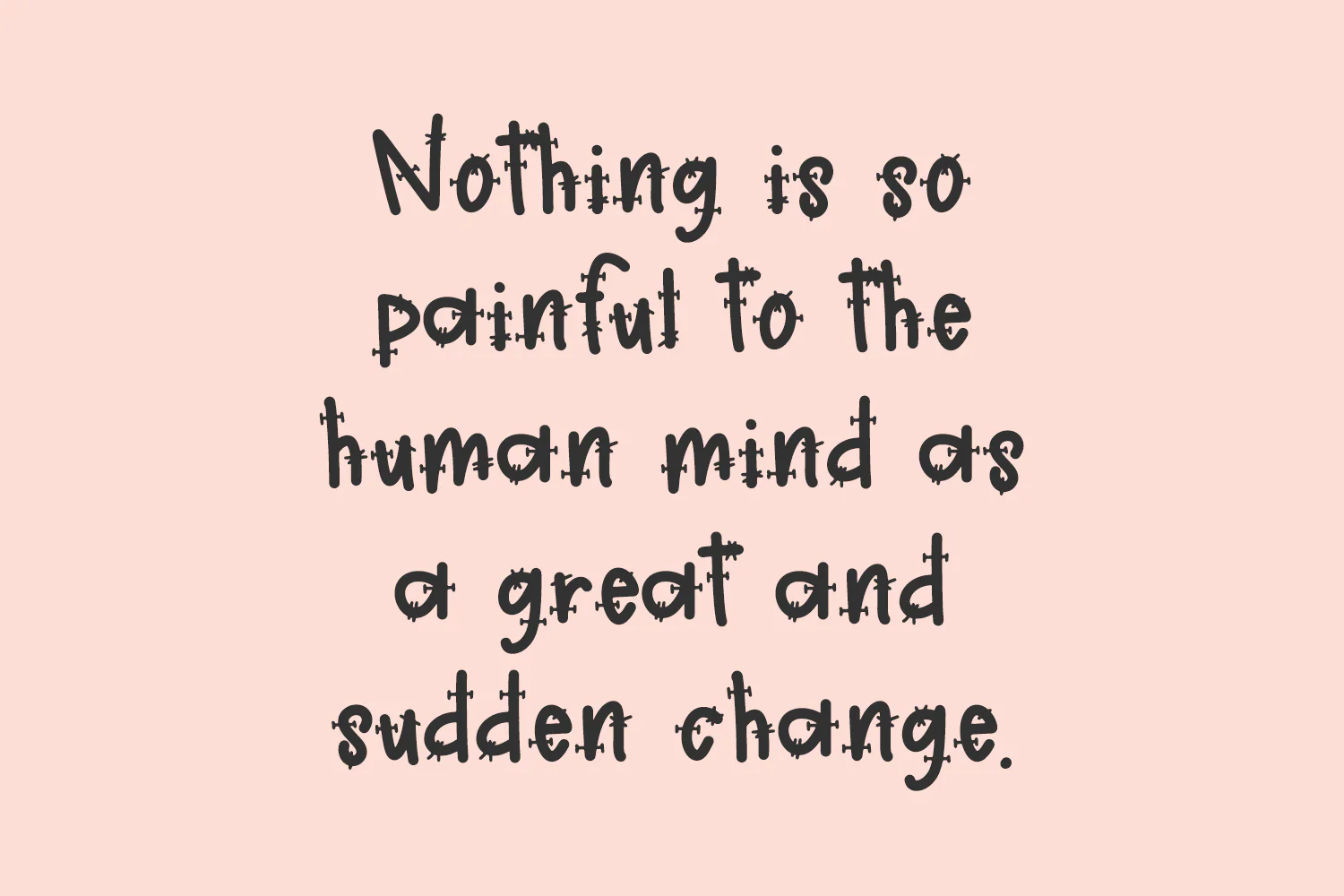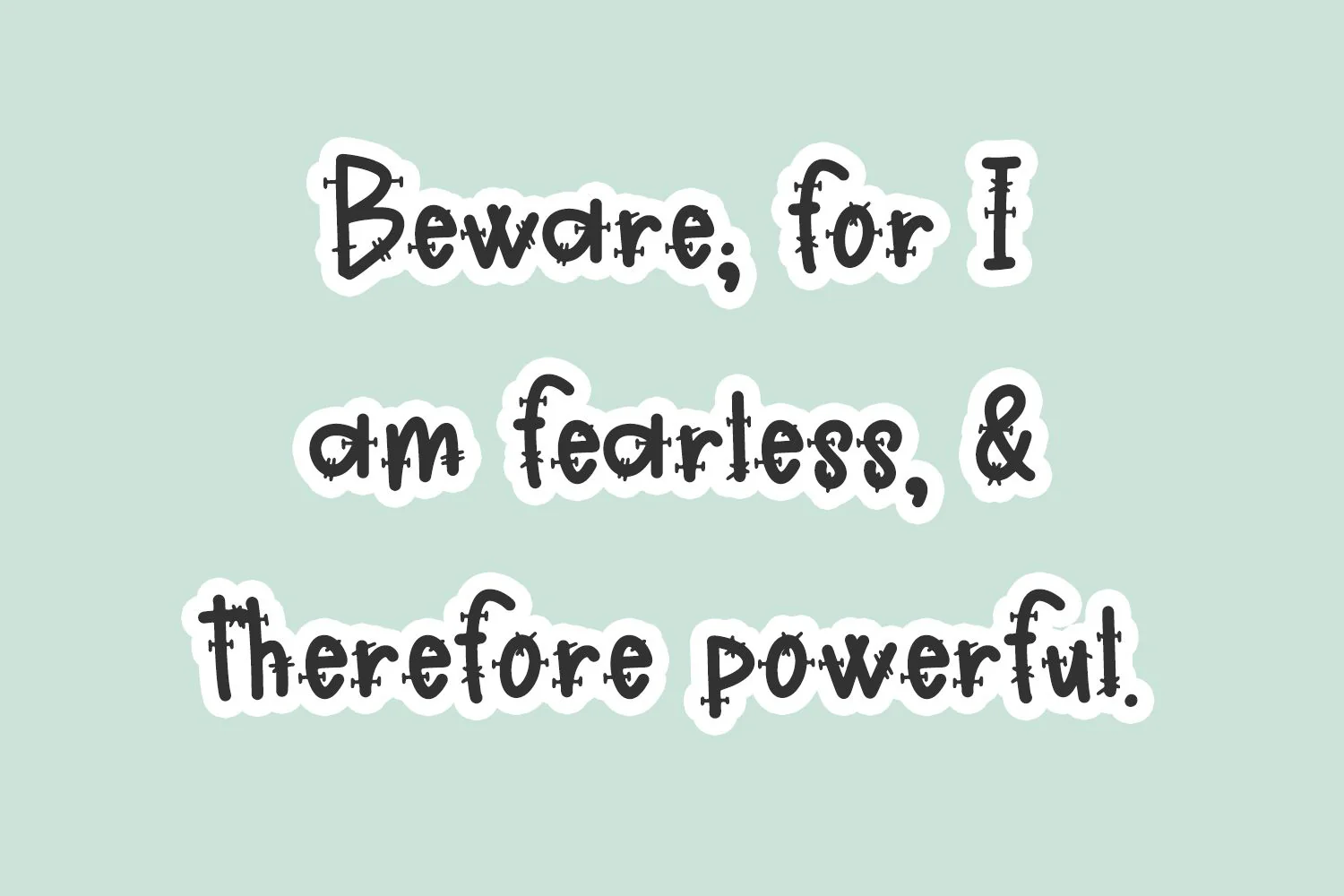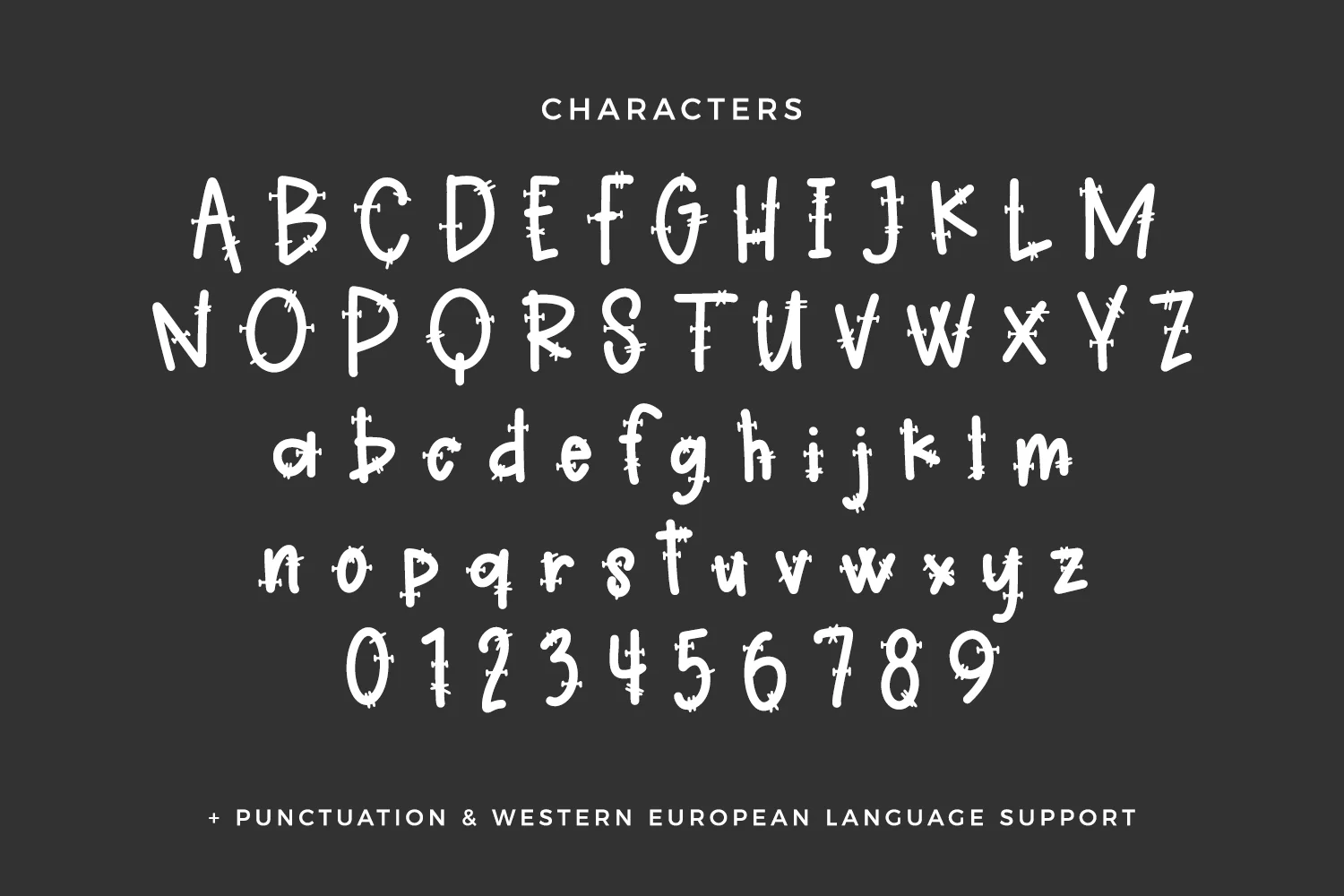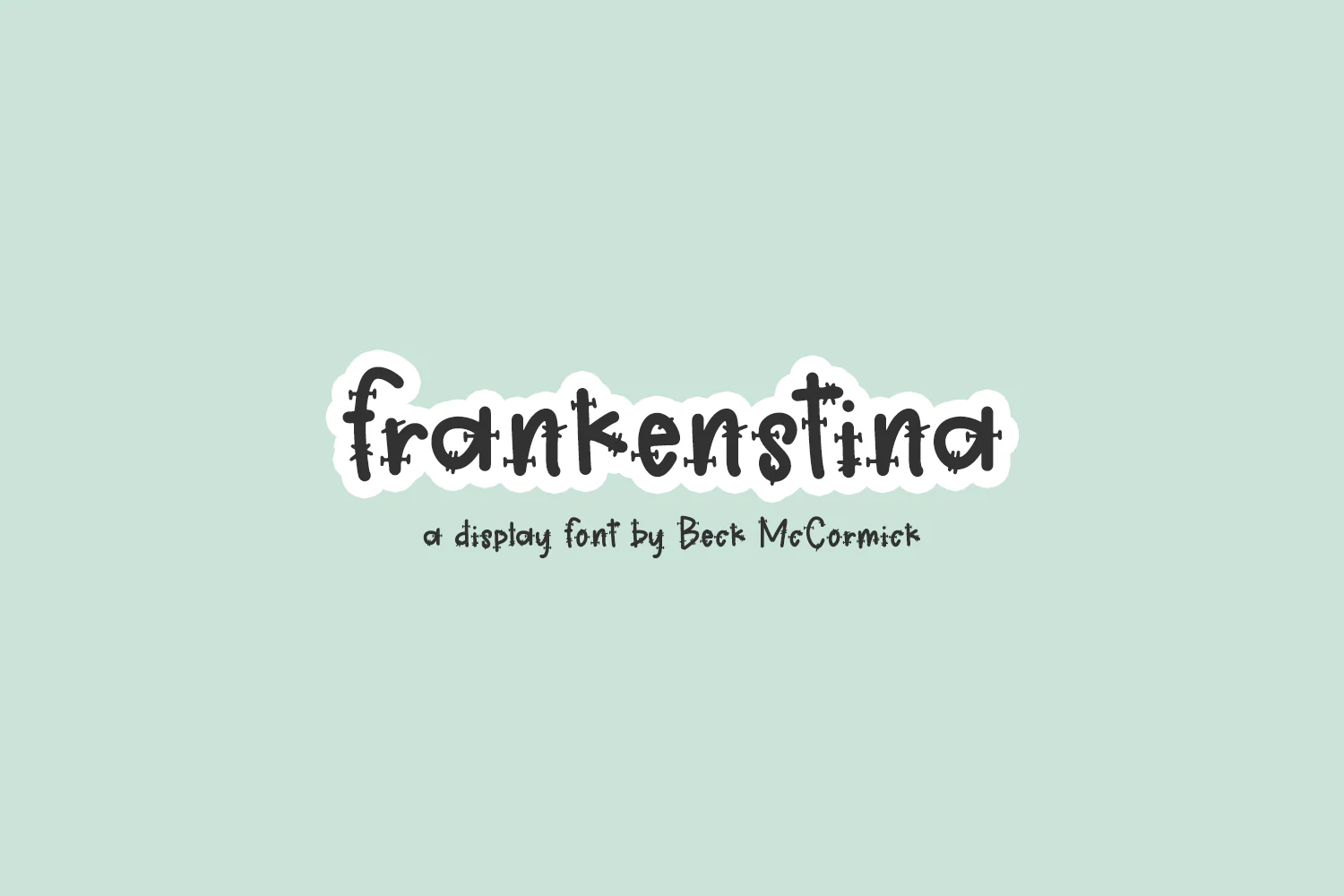
Introducing Frankenstina, a playful monster-themed font. Frankenstina is a fantastic fit for your scary designs. This font is well-suited for Halloween crafting projects with your Cricut or Silhouette machine, and can be used for things like shirts, signs, labels, marketing materials, social media, SVG designs, greeting cards & other print items, and even spooky logos & branding.
- Western European language support - English, French, Spanish, Portuguese (Brazil), Portuguese (Portugal), Italian, German (Germany), German (Austria), Dutch, Danish, Swedish, Norwegian (Bokmål and Nynorsk), Finnish, Icelandic, Irish, Welsh